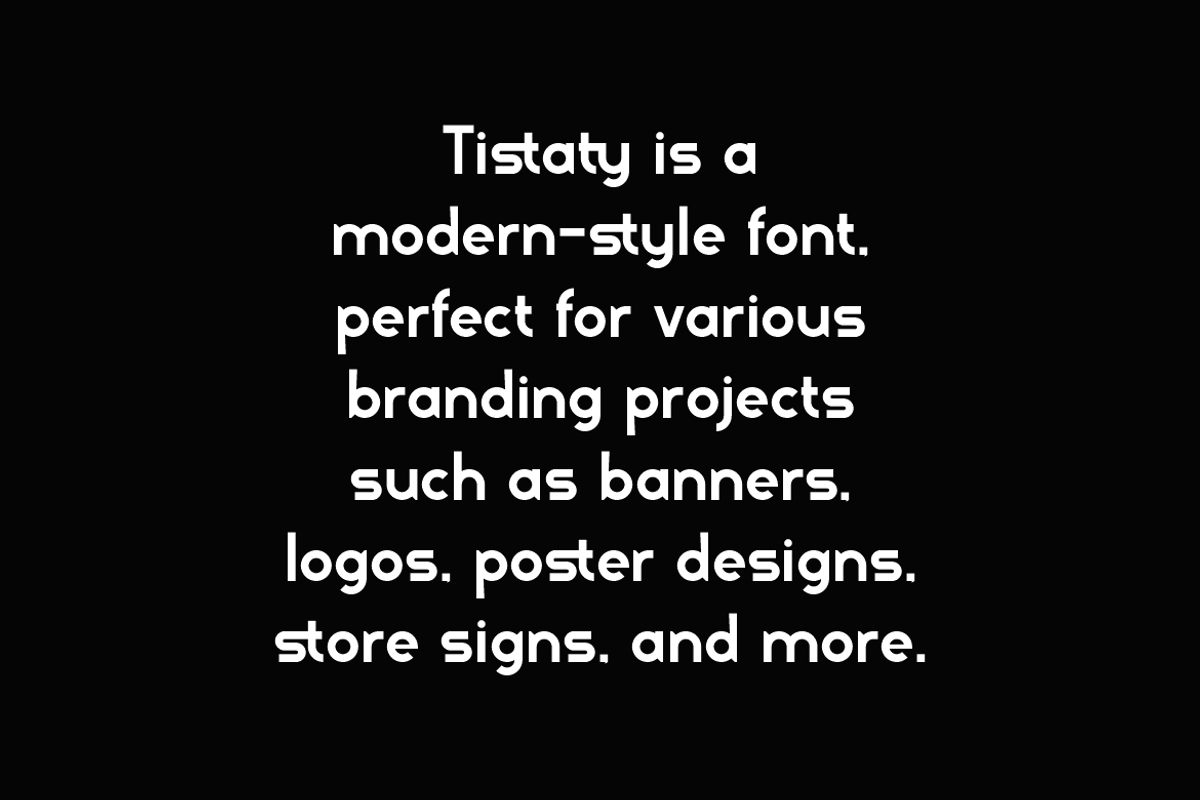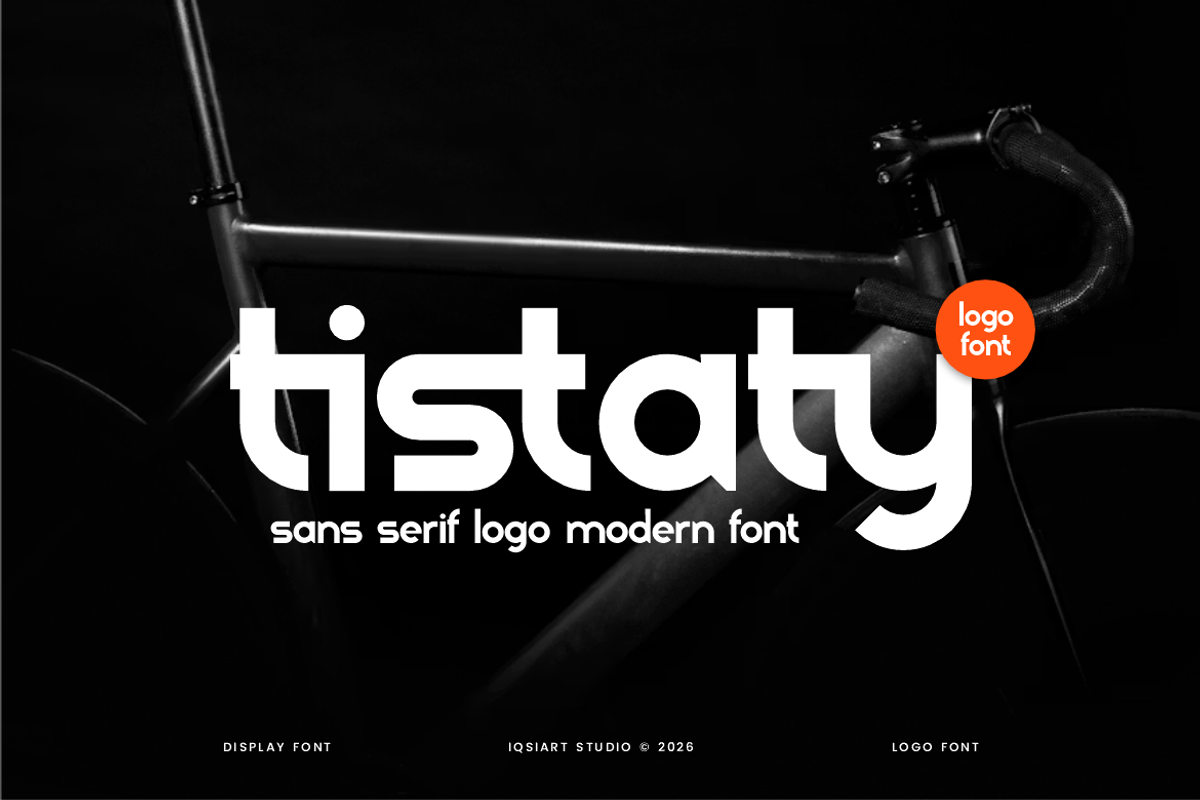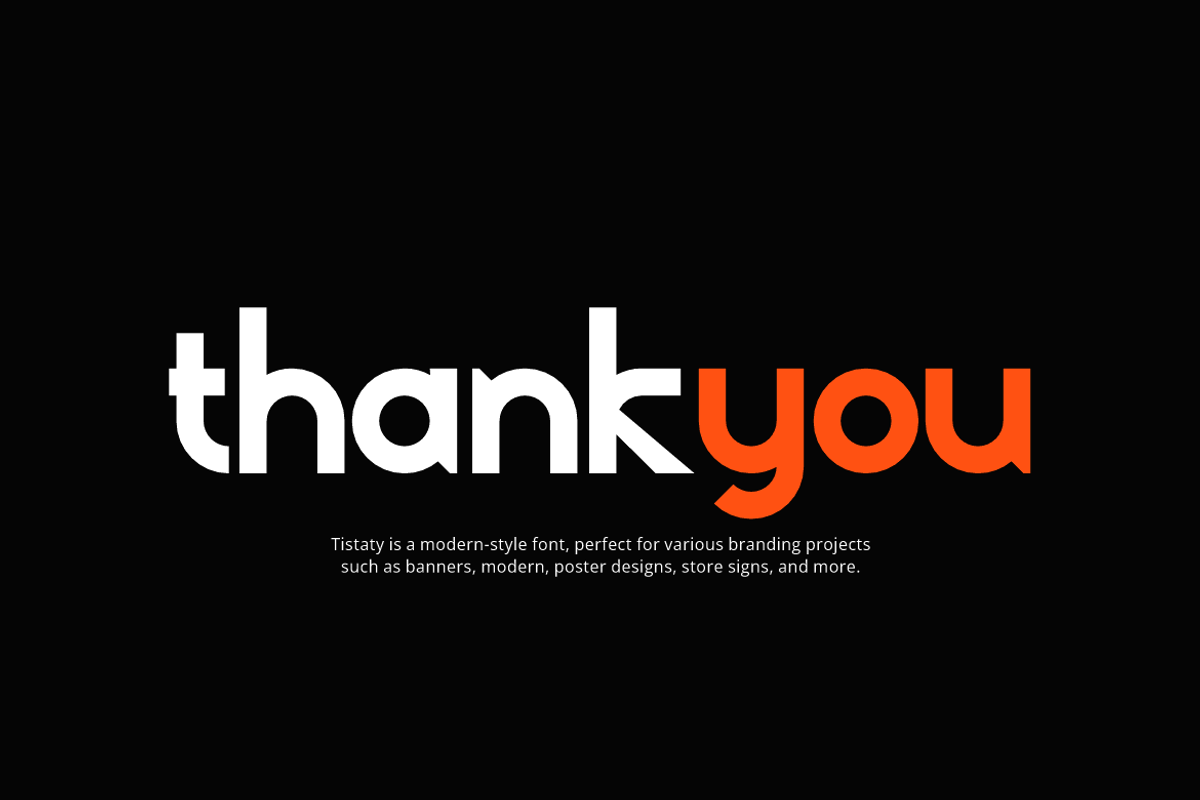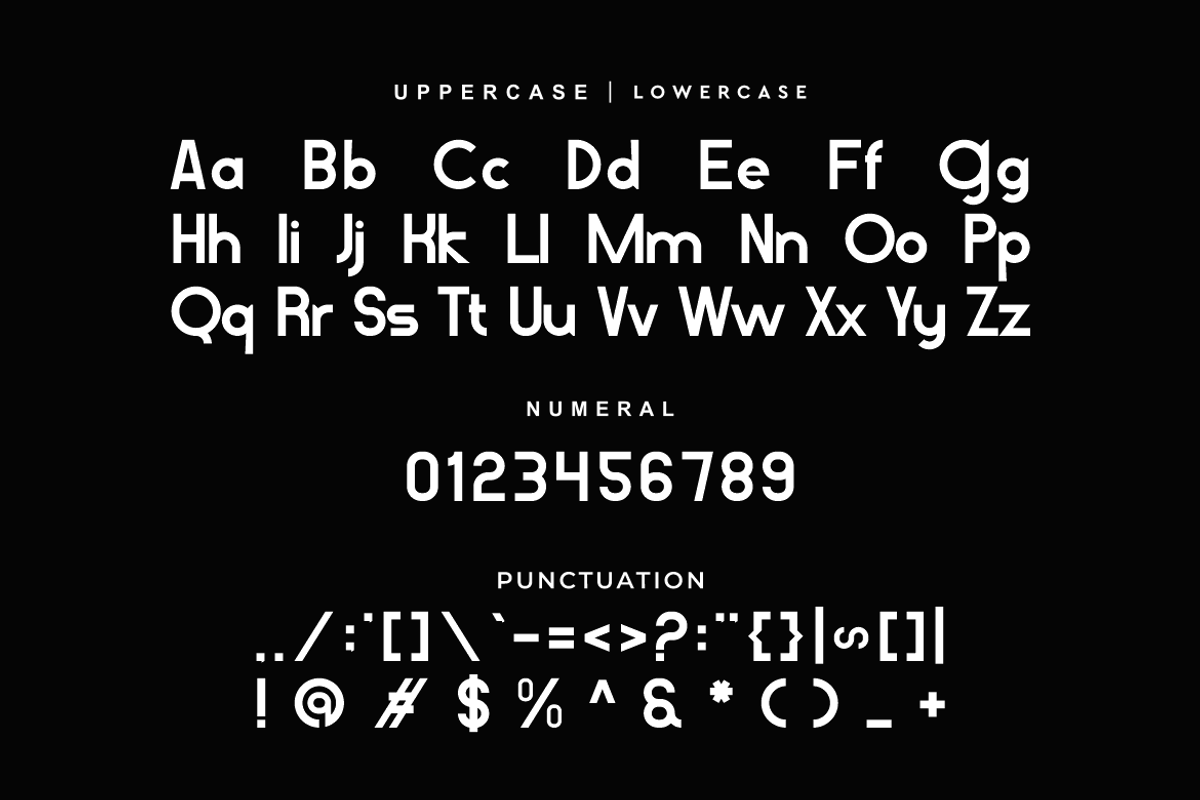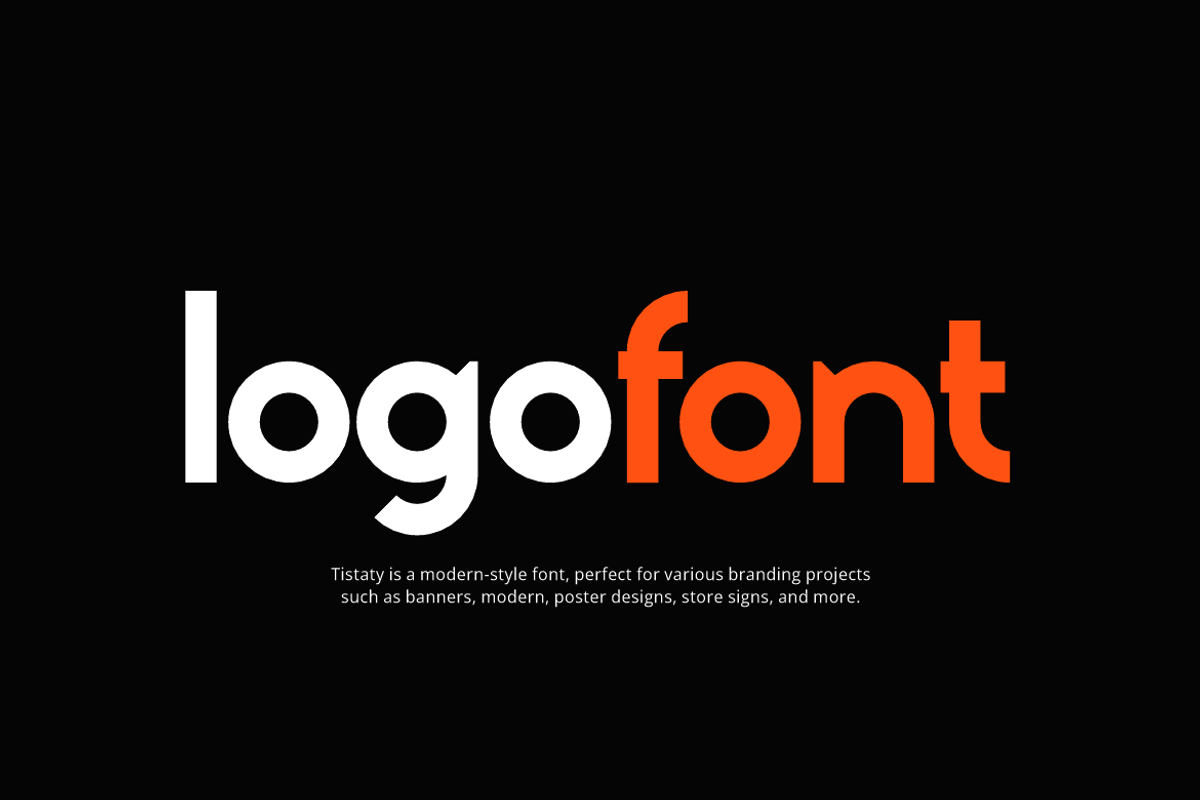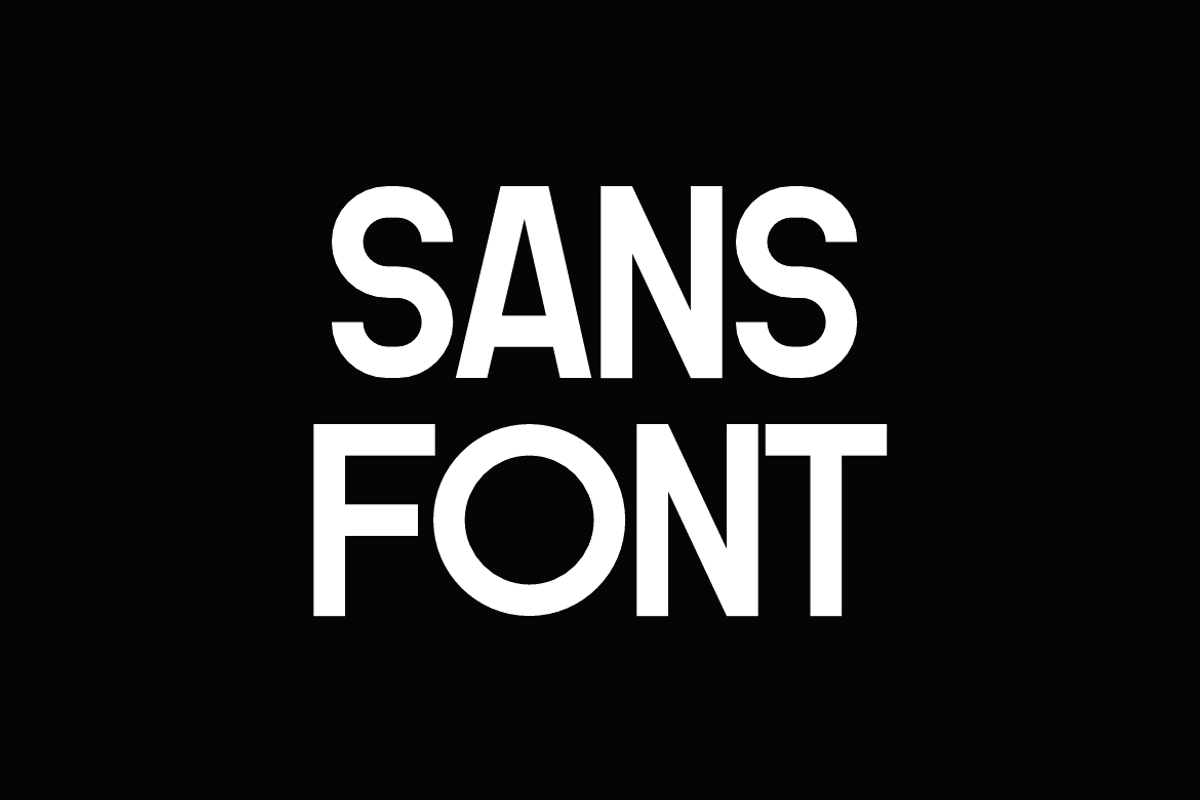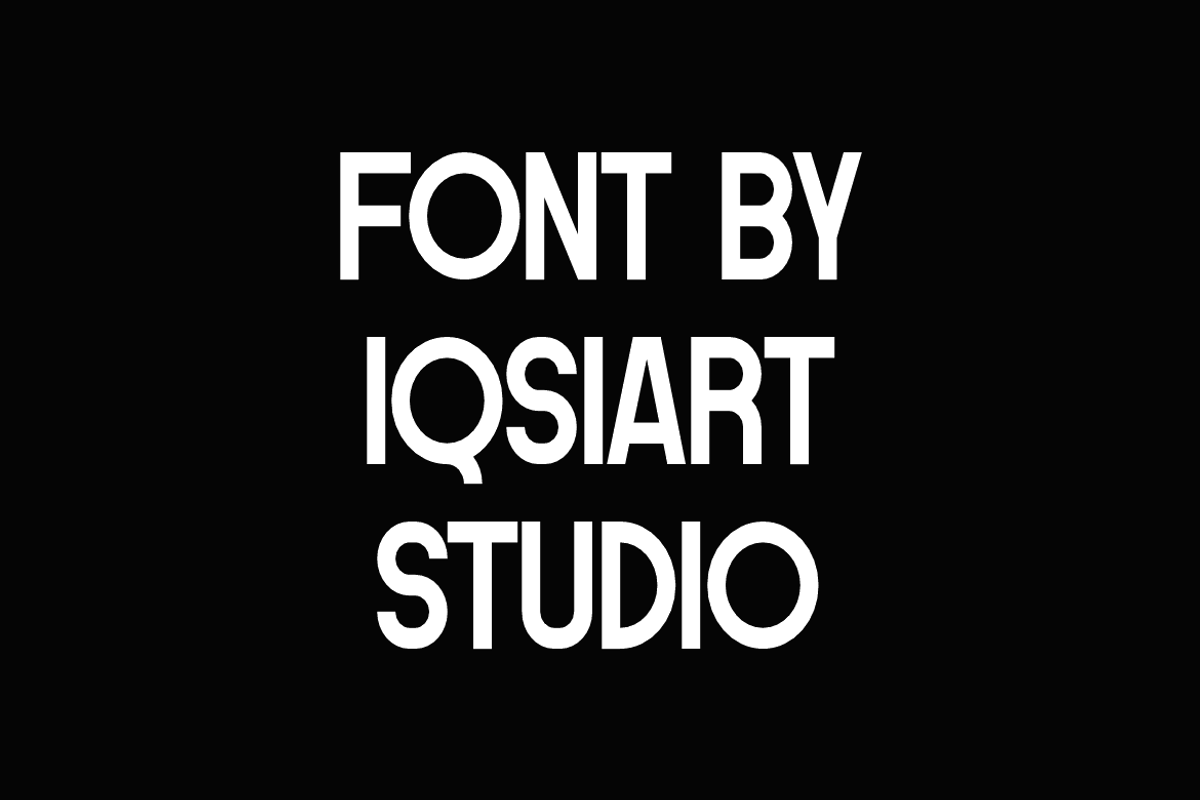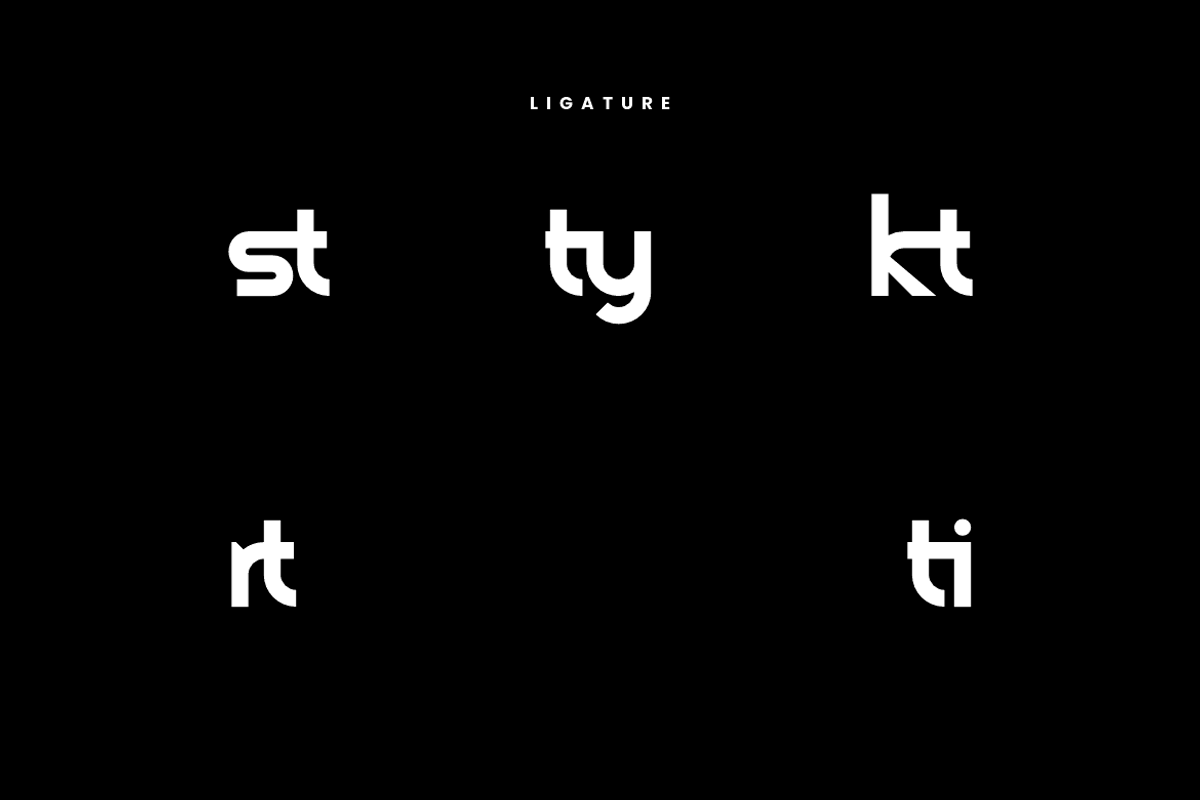
Tistaty - Ligatures Logo Font
Tistaty Font is a bold and authentic display typeface that suits a variety of design needs. We offer a wide range of themes and font styles — visit our profile to explore more and find the perfect style for your project.